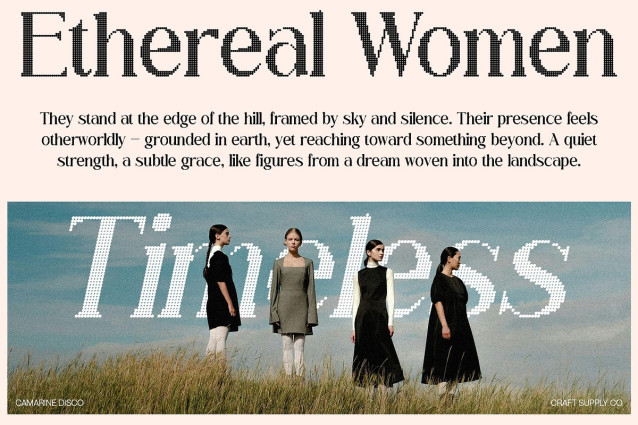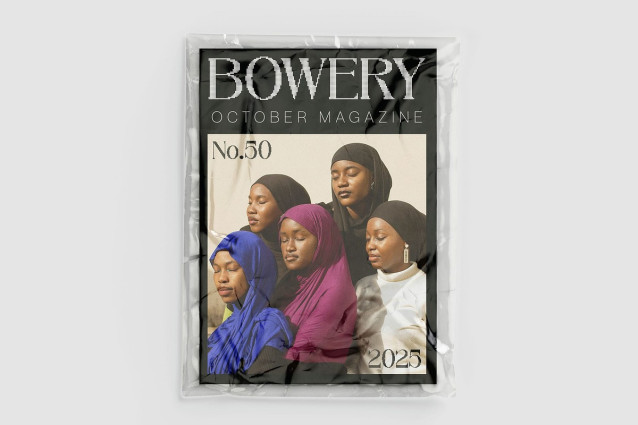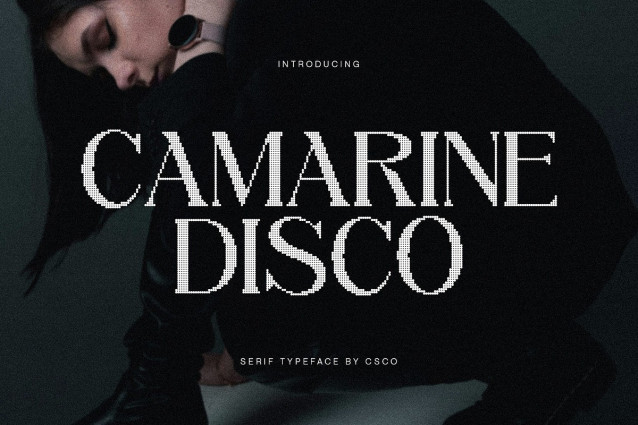
Camarine Disco Font
Camarine Disco Font – This is a modern serif font that balances refinement with bold presence. Featuring slim, high-contrast proportions and elongated serifs, it communicates sophistication and clarity in every letterform. Its structure embodies precision, making it a perfect choice for designers seeking an elegant yet confident typeface.
Disco Character for Sparkling Energy What makes this font unique is its disco-inspired detail, which introduces a sense of shimmer and liveliness. This subtle sparkle effect adds a glamorous, almost celebratory character, allowing the font to capture attention instantly. It feels like a blend of classic design principles illuminated with a modern, energetic twist.
Balancing Professionalism with Artistry While its slim contrasts suggest authority and professionalism, the disco styling elevates this font into something more expressive and memorable. It strikes a rare balance between reserved elegance and artistic flair, making it versatile across both corporate and creative contexts.
Perfect for Luxury and High-End Designs This font excels in luxury branding, high-end editorials, and stylish posters. Whether it’s for fashion labels, premium packaging, or glamorous events, the font conveys prestige while also adding vibrancy. Designers can use it to express both exclusivity and dynamism, ensuring their projects stand out with timeless beauty and modern sparkle.